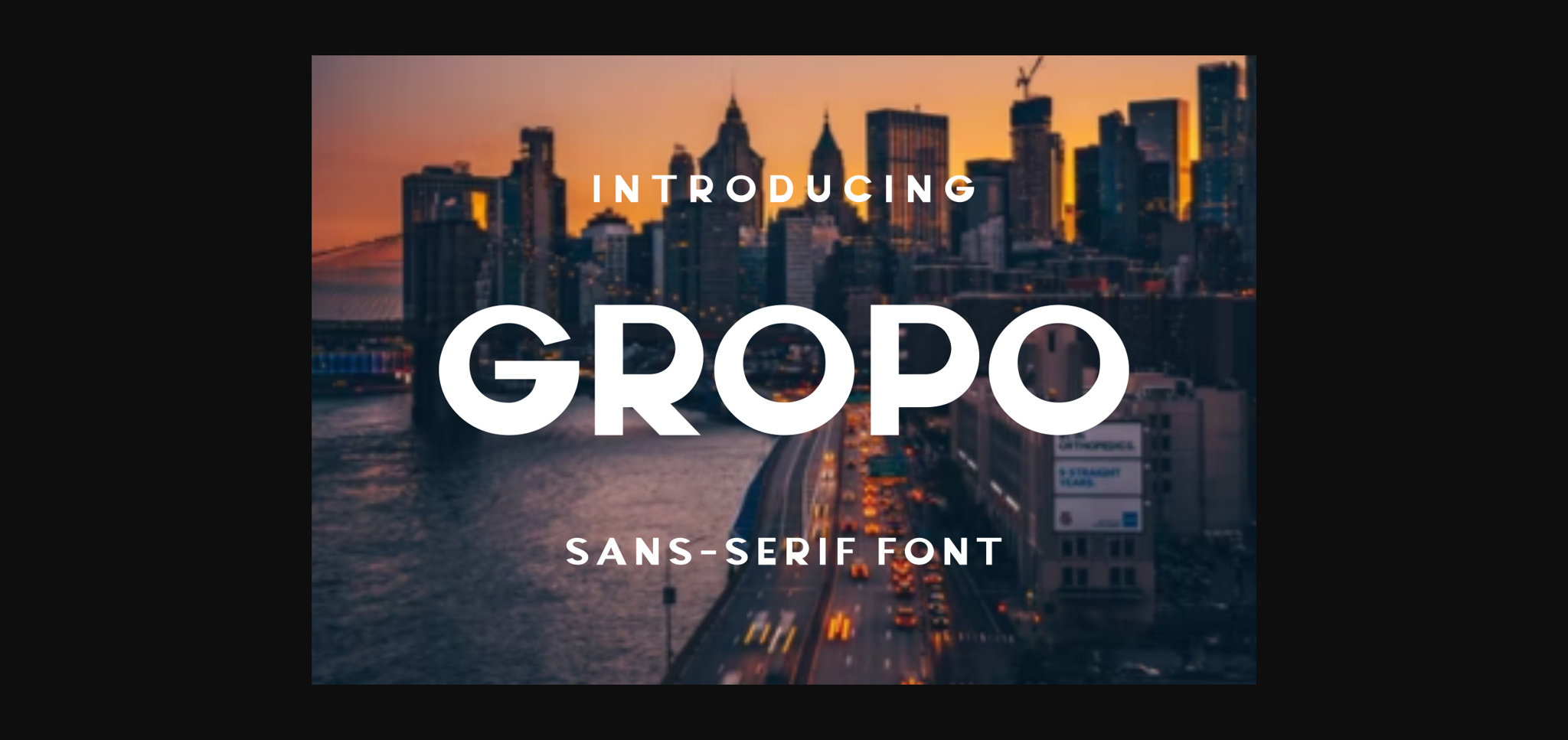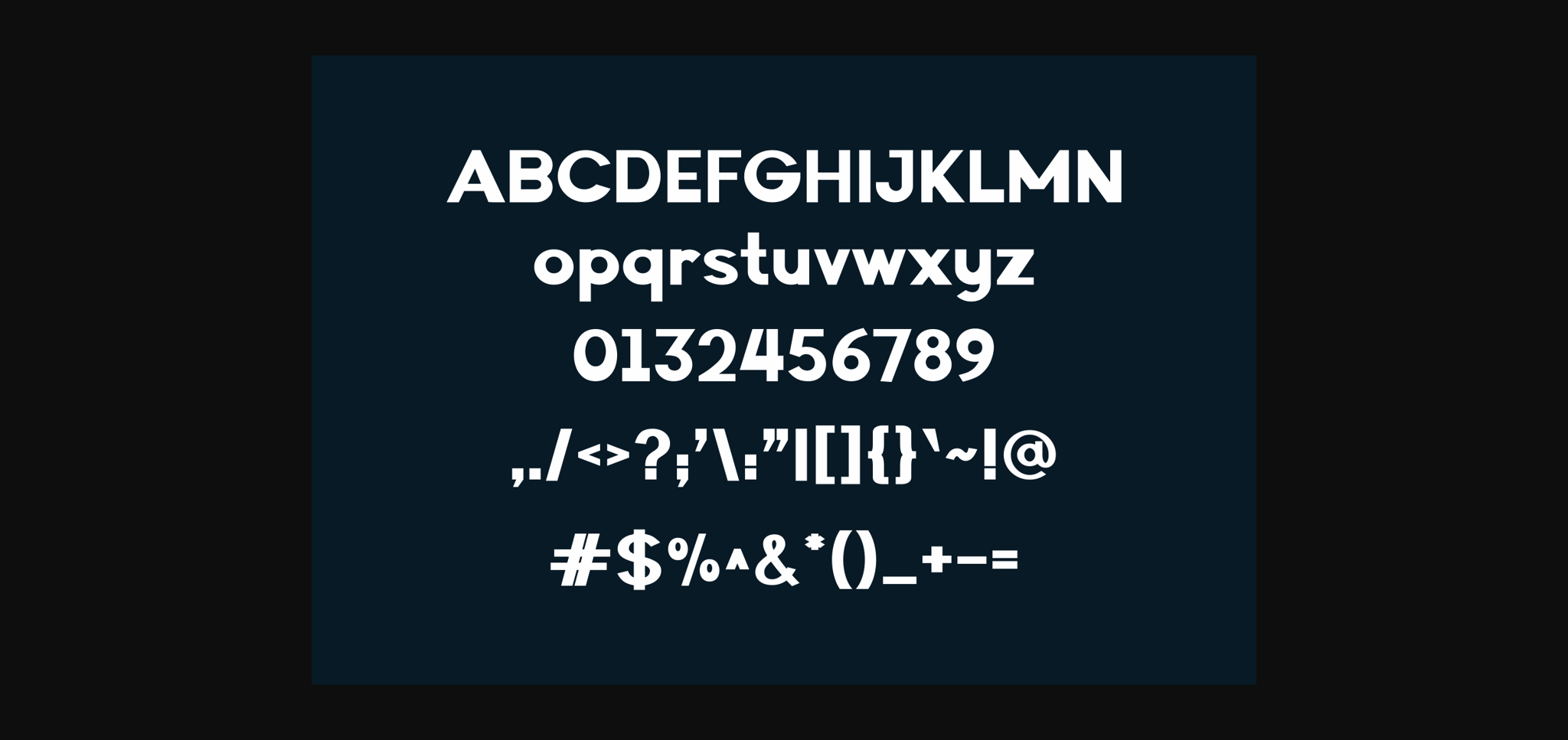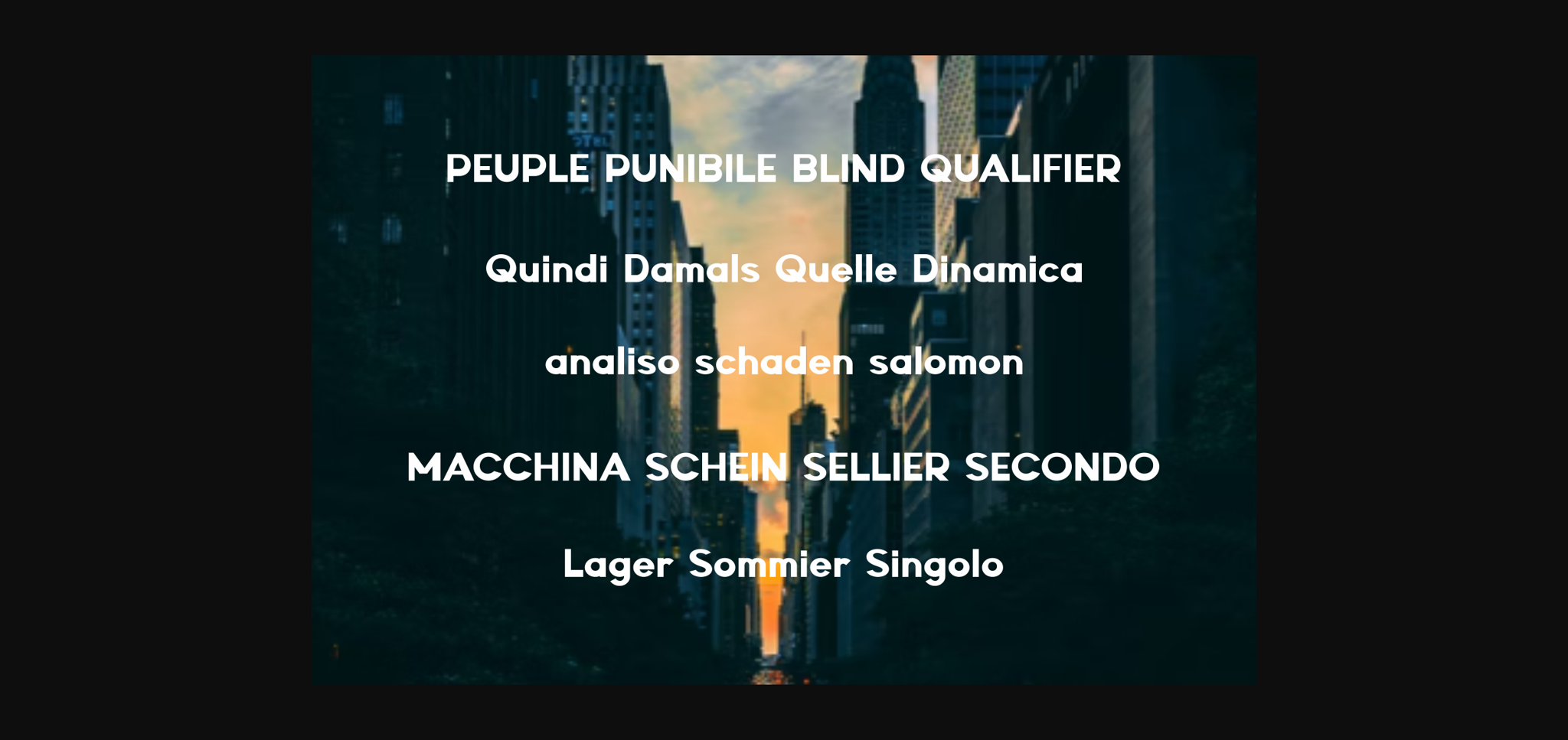
HomeSans Serif FontsGropo Font Sans Serif Fonts Gropo Font FacebookXPinterestWhatsApp 1 of 5 ... Gropo Font Poster 2... Gropo Font Poster 3... Gropo Font Poster 4... Gropo Font Poster 5... About Gropo Font Gropo is a cool and unique sans serif font. Fall in love with its incredibly distinct and timeless style and use it to create spectacular designs! DOWNLOAD NOW People also explored Infantry Font Black Coffee Mug Mockup with Magenta Tulip Humaira Font Beatrice Font Closaile Font Pretosh Loving Font Cheese Banana Font London Road Font Moontello Script Font 433 0 TagsGropoGropo Font Previous articleHankura FontNext articleWarnedom Font LEAVE A REPLY Cancel reply Comment: Please enter your comment! Name:* Please enter your name here Email:* You have entered an incorrect email address! Please enter your email address here Website: Save my name, email, and website in this browser for the next time I comment. Personal Use Free Charletto Personal Use Free Read more about this font Planning Personal Use Free Read more about this font Fibon Personal Use Free Read more about this font The Lima Personal Use Free Read more about this font BLOG Using Fonts in Digital Marketing: Tips to Strengthen Your Brand Identity In the realm of digital marketing, every visual element plays a crucial role in shaping a brand's identity, and fonts are no exception. The... Exploring Font Trends The 10 Best Handwriting Fonts to Add Personality to Your Designs How to Cut Any Font on Cricut: Convert a Font to SVG (Free)